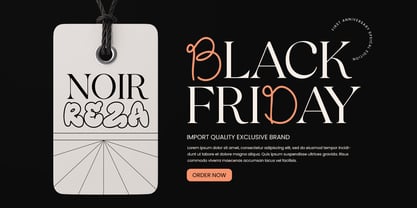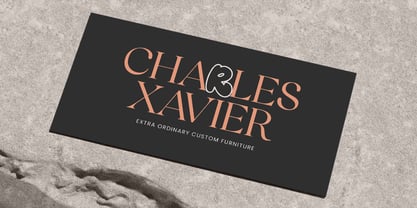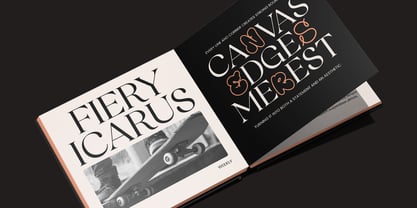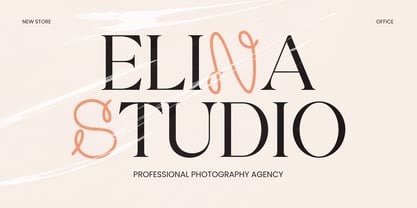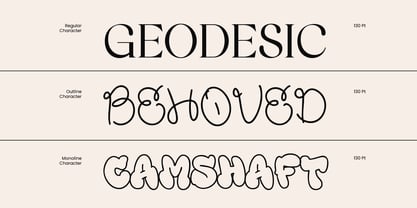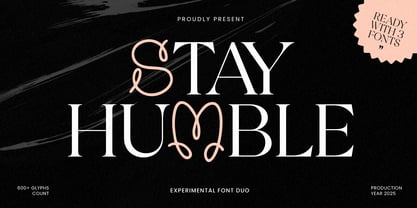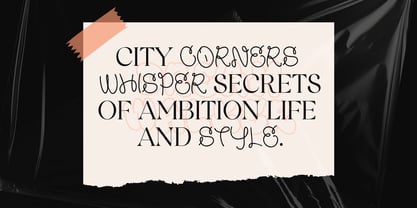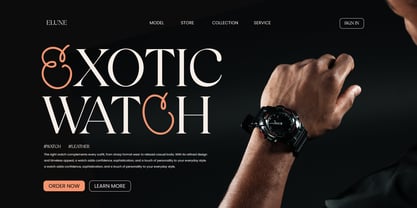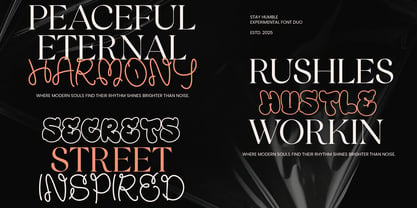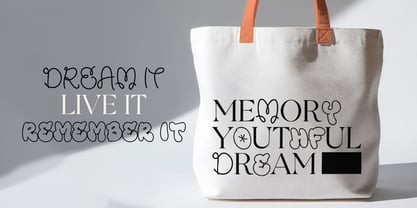
Stay Humble
by Sensatype Studio
The Stay Humble Font Family was designed by Zamroni Hamzah and published by Sensatype Studio. Stay Humble contains 3 styles and family package options. More about this family
STAY HUMBLE is an experimental font trio featuring three distinct styles — Serif, Outline, and Monoline — crafted to bring expressive versatility and modern artistic energy to your design projects. This unique combination allows you to build layered compositions, dynamic branding systems, and standout editorial layouts with ease.
The Serif style delivers elegance and structure, making it perfect for titles and sophisticated branding. The Outline style adds a bold, contemporary stroke ideal for posters, headlines, and contrast pairings. The Monoline style offers minimalist charm, great for signatures, accents, and clean modern layouts.
Together, these three styles create a powerful tool for designers who love experimental typography. Whether used individually or combined, STAY HUMBLE brings creativity, balance, and a unique visual identity to any project.
STAY HUMBLE – Experimental Font Trio Features
• Three complete fonts: Serif, Outline, and Monoline
• Perfect for expressive branding, posters, packaging, and editorial layouts
• Artistic and modern style suitable for creative industries
• Ideal for layering, contrast pairing, and experimental typography
• Uppercase, lowercase, numerals, and punctuation included
• OpenType features for enhanced creative control